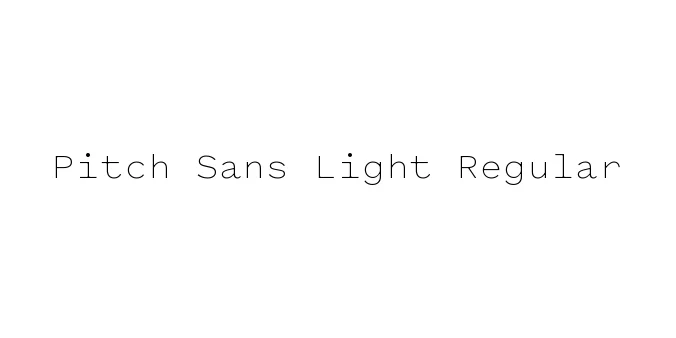
Pitch Sans Light Regular
Designed by Kris Sowersby
Pitch Sans Light Regular is a sophisticated sans-serif typeface designed by Kris Sowersby of the Klim Type Foundry. It originated as a natural evolution of Pitch, a typewriter-inspired slab serif that captured the essence of mid-century mechanical writing. This sans-serif variant maintains the same structural integrity and distinct personality of its predecessor while stripping away the slabs to provide a cleaner, more modern appearance suitable for high-resolution digital and print environments.
The "Light" weight specifically offers a delicate yet sharp aesthetic, making it an excellent choice for high-end editorial work and minimalist branding projects. By blending the rigid spacing concepts of monospaced fonts with proportional kerning, Pitch Sans Light Regular achieves a unique rhythm that is both nostalgic and contemporary. It stands as a testament to modern type design, offering exceptional versatility across UI/UX design and complex typographic layouts.
Pitch Sans Light Regular Best Uses
Perfect for headlines and pull quotes in magazines or digital journals.
Ideal for minimalist visual identities and tech-focused logos.
Clean lines ensure high legibility on high-resolution screens and interfaces.
Striking aesthetic for architectural or artistic exhibition posters.